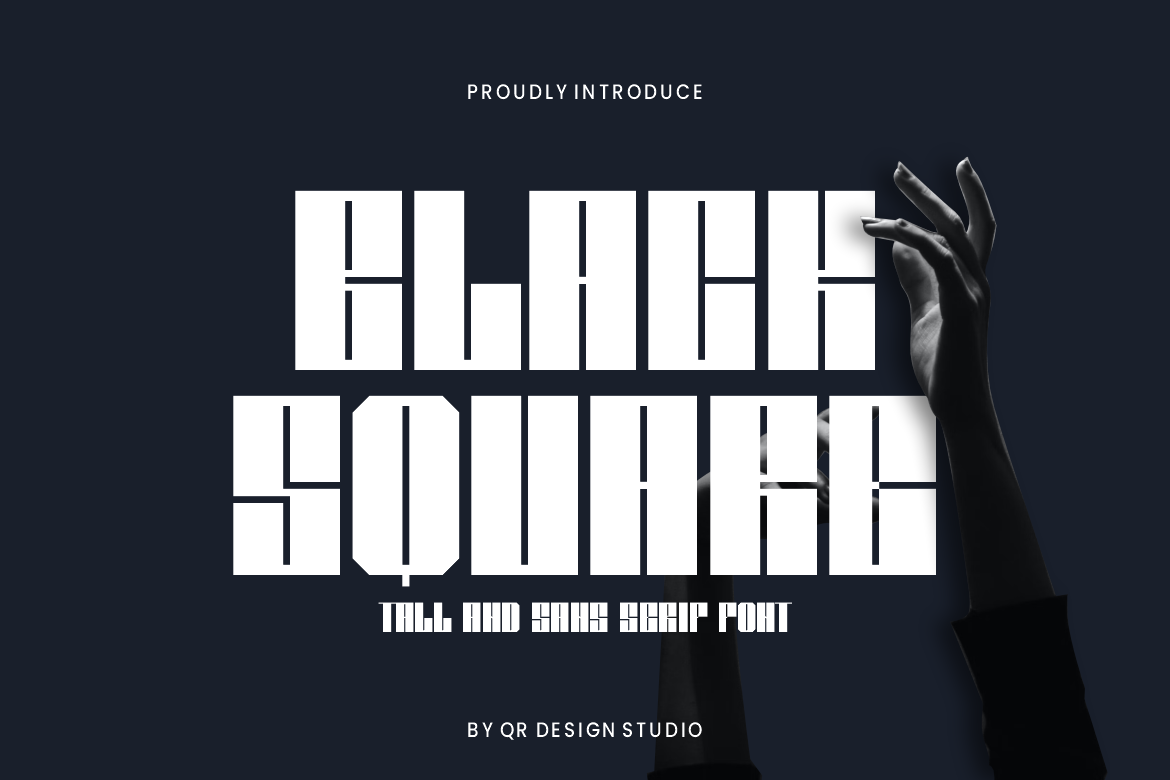
Black Square - Sport & Tall Font
Black Square - Tall Font is a bold and authentic display font. The font is suitable for any branding project like poster, logo, sport, and many more. Outstanding in a wide range of contexts.